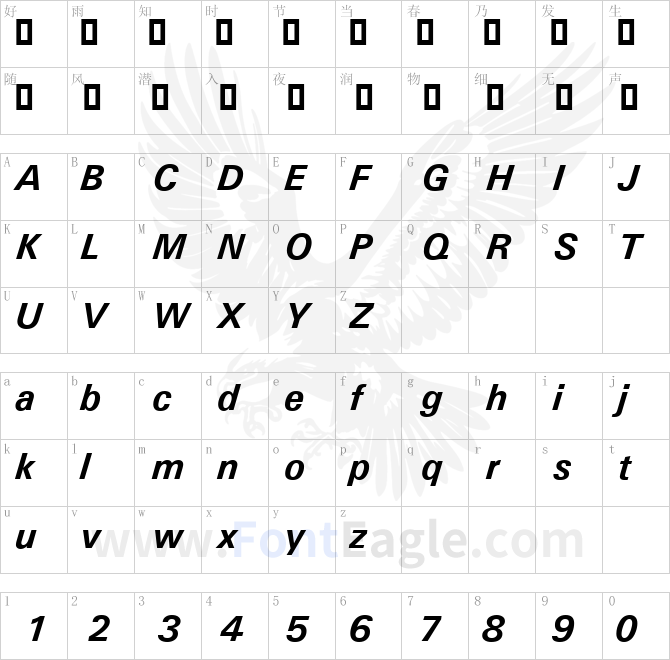
- Font name:Univers CE
- Font Subfamily:Gras Italique
- Font Subfamily ID:Univers Bold Italic
- Font Full Name:Univers Gras Italique
- Font Version:Version 1.02a
- Postscript:Univers-BoldItalic